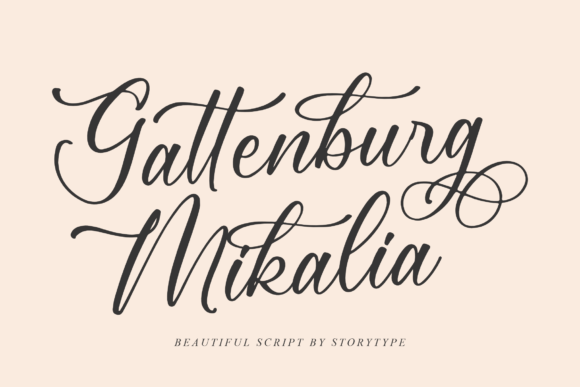
Step into the world of sophistication and style with Gattenburg Mikalia, a breathtaking script font that captivates the essence of elegance and luxury. This masterpiece from Storytype Studio is a visual symphony, carefully crafted to elevate your creative projects to new heights.
With its graceful curves and alluring charm, Gattenburg Mikalia is the perfect font for those seeking to make a statement. Its modern look and timeless appeal make it an ideal choice for logos that demand attention, book titles that promise adventure, and movie titles that ignite the imagination. Unleash the power of Gattenburg Mikalia and watch your words come alive with an unparalleled visual impact.
Fashion brands seeking to exude exclusivity and style will find a perfect companion in Gattenburg Mikalia. Its delicate strokes and refined character add a touch of sophistication to clothing designs, creating a sense of luxury that resonates with discerning customers. Magazines and publications seeking to stand out from the crowd will find Gattenburg Mikalia an invaluable asset. Its elegant presence adds a touch of class to articles, capturing readers' attention and leaving a lasting impression.
The versatility of Gattenburg Mikalia extends beyond logos, titles, and branding. Its unique style seamlessly complements lettering projects, bringing quotes and phrases to life with a touch of artistic flair. Create stunning graphics that tell a story, evoke emotions, and leave a lasting impact on your audience.
Gattenburg Mikalia is not just a font; it's an invitation to embark on a creative journey, to explore the boundaries of your imagination and create works of art that captivate and inspire. Its timeless beauty and modern appeal make it a must-have for designers, artists, and creative professionals seeking to make their mark on the world.